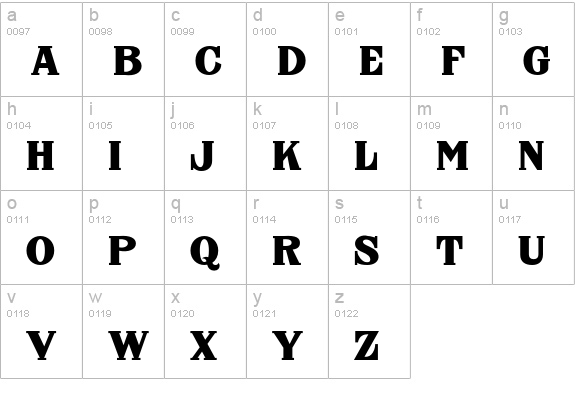
FHA Nicholson French NCV Normal Font Details
FHA Nicholson French NCV Normal is the standard, neutral variant in the FHA typeface family \xE2\x80\x94 well suited to general body text, paragraphs, and standard typographic work.
The FHA Nicholson French NCV Normal font is a stunning creation that effortlessly combines elegance and sophistication. Its clean lines and classic design make it a versatile choice for a wide range of design projects. Whether you're working on a logo, a website, or a print advertisement, this font will add a touch of refinement that will instantly elevate your work to the next level. One of the best things about the FHA Nicholson French NCV Normal font is that it is freely available to download at FontsMarket.com. This means that you can easily access this incredible font without having to break the bank. With just a few clicks, you can have this font in your design arsenal, ready to be used in your next project. The FHA Nicholson French NCV Normal font features a perfect balance between modernity and tradition. Its smooth curves and precise letterforms create a harmonious and legible typeface that is a joy to work with. The font's versatility is also worth noting, as it can be used in both formal and casual contexts, making it ideal for a wide range of design applications. Whether you're a professional designer or a hobbyist, the FHA Nicholson French NCV Normal font is a must-have in your collection. Its timeless design and effortless beauty will make your designs stand out and leave a lasting impression on your audience. So don't miss out on this amazing opportunity to enhance your creative projects with this incredible font. Download the FHA Nicholson French NCV Normal font for free at FontsMarket.com and let your creativity soar.